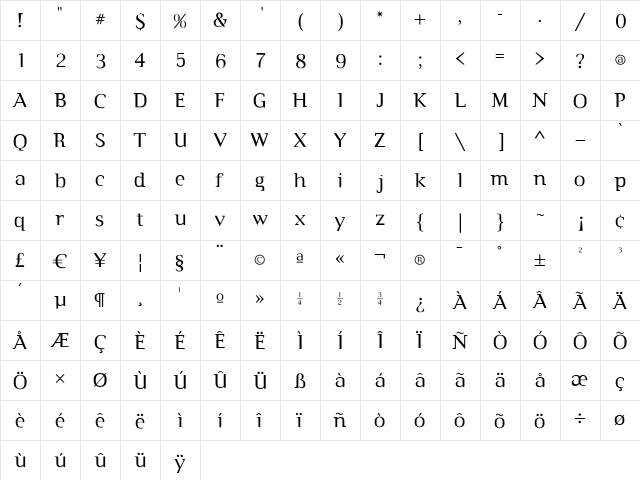
Metamorphosis Regular
Design Context for Metamorphosis Typeface
Metamorphosis is a composed and adaptable typeface that performs quietly and consistently across a wide range of design contexts.